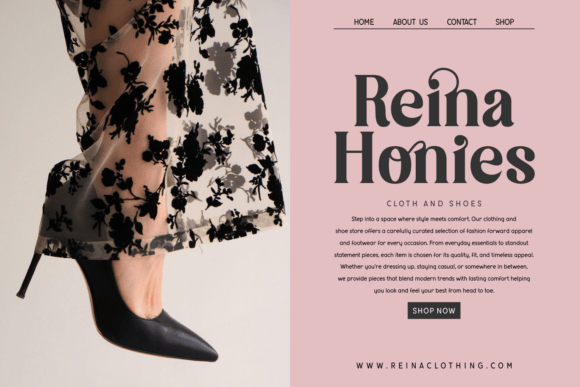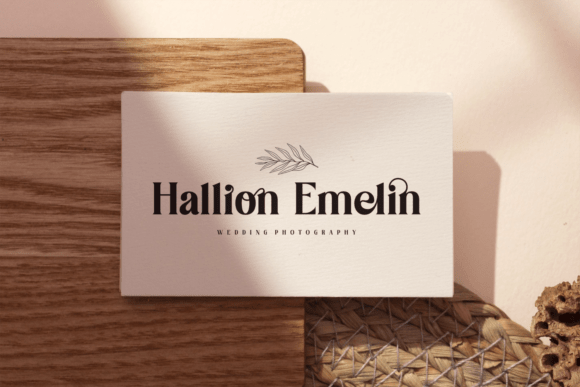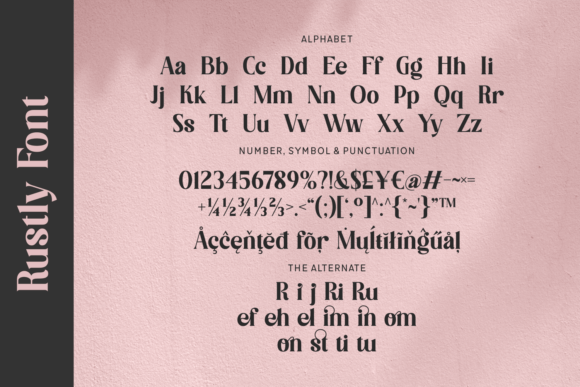
Introduction to Rustly Font
Rustly is a bold and classy serif typeface that fuses high contrast strokes with playful modern curves.
Featuring elegant ligatures and standout detailsβ€”like the distinctive looped β€œs”—Rustly offers a sophisticated yet creative aesthetic perfect for logos, branding, magazine headlines, and fashion-forward visuals Its confident charm makes every word feel impactful and chic.
Key Features of Rustly Font
Why Choose Rustly Font?